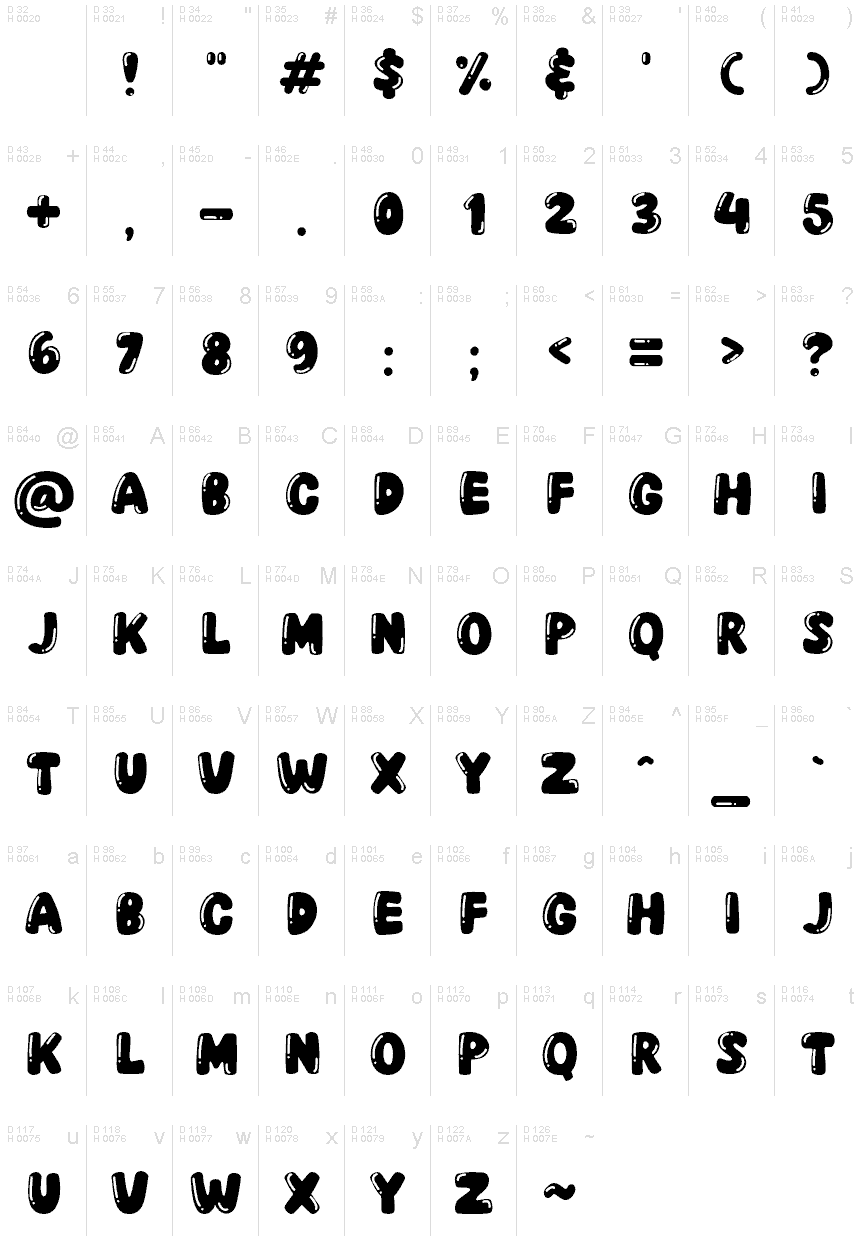
Soulmeh font by MJType is a bubbly and cartoonish design that’s full of playful personality. The bold letter styles with organic shapes make for an instant eye-catching presence and allow the blocky letterforms to pop even more. Inspired by old-school comic headers, this display font looks retro while still looking fun, casual, and modern.
As Soulmeh lefts its mark wherever you use it, go ahead with titles for children’s books or comics in addition to posters made for events such as food contests. Other applications include packaging designs, streetwear t-shirts and hats, websites, podcasts, apps, videos, or posts.